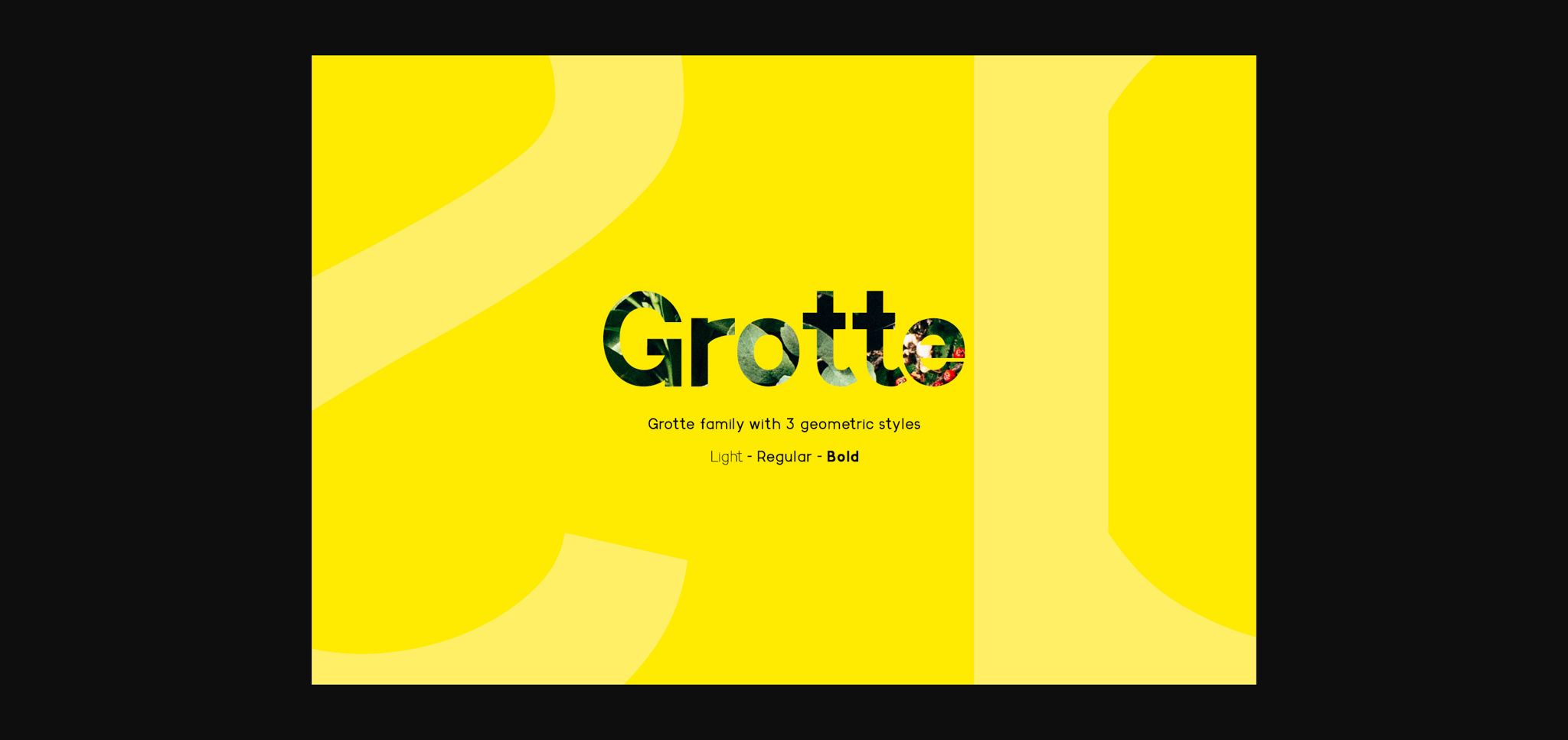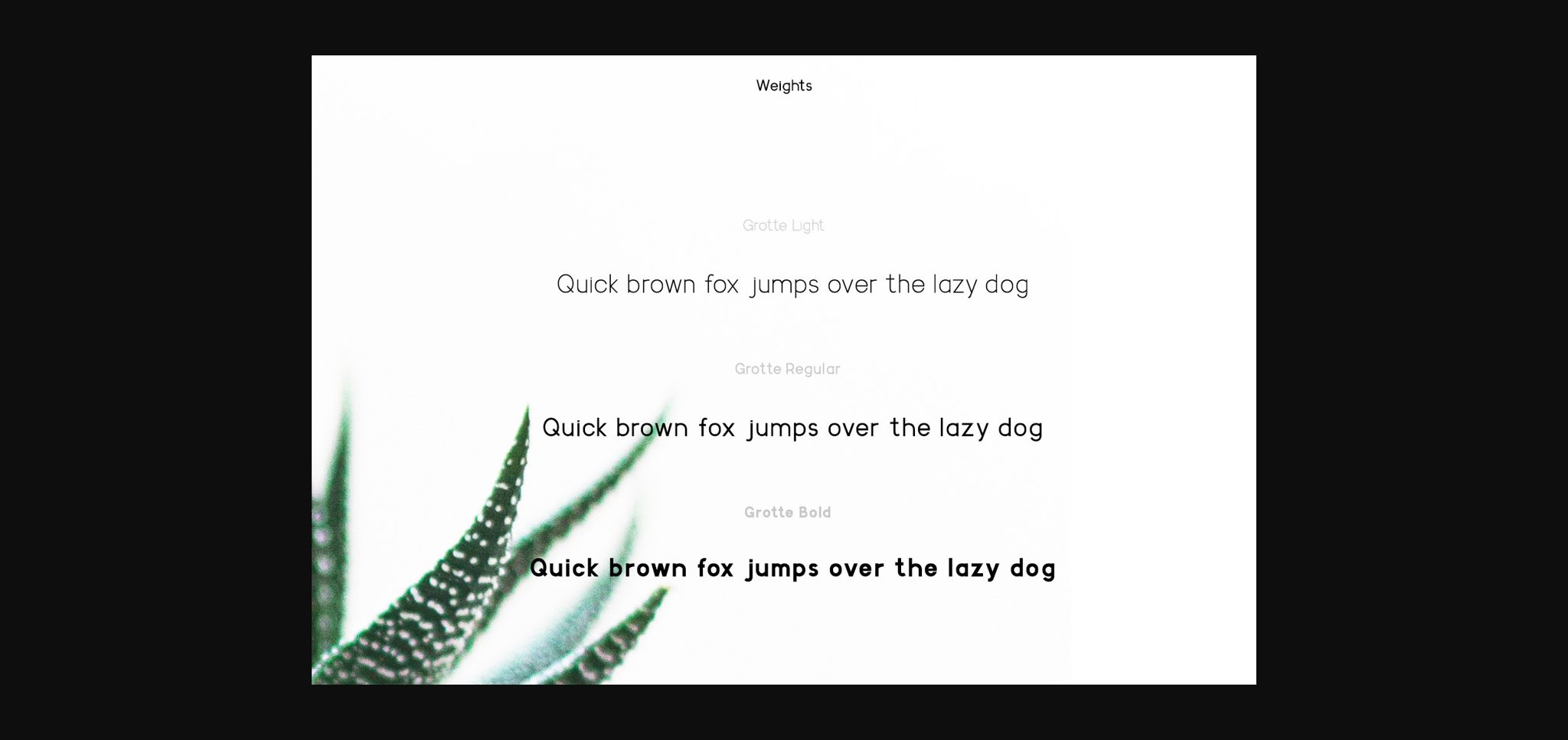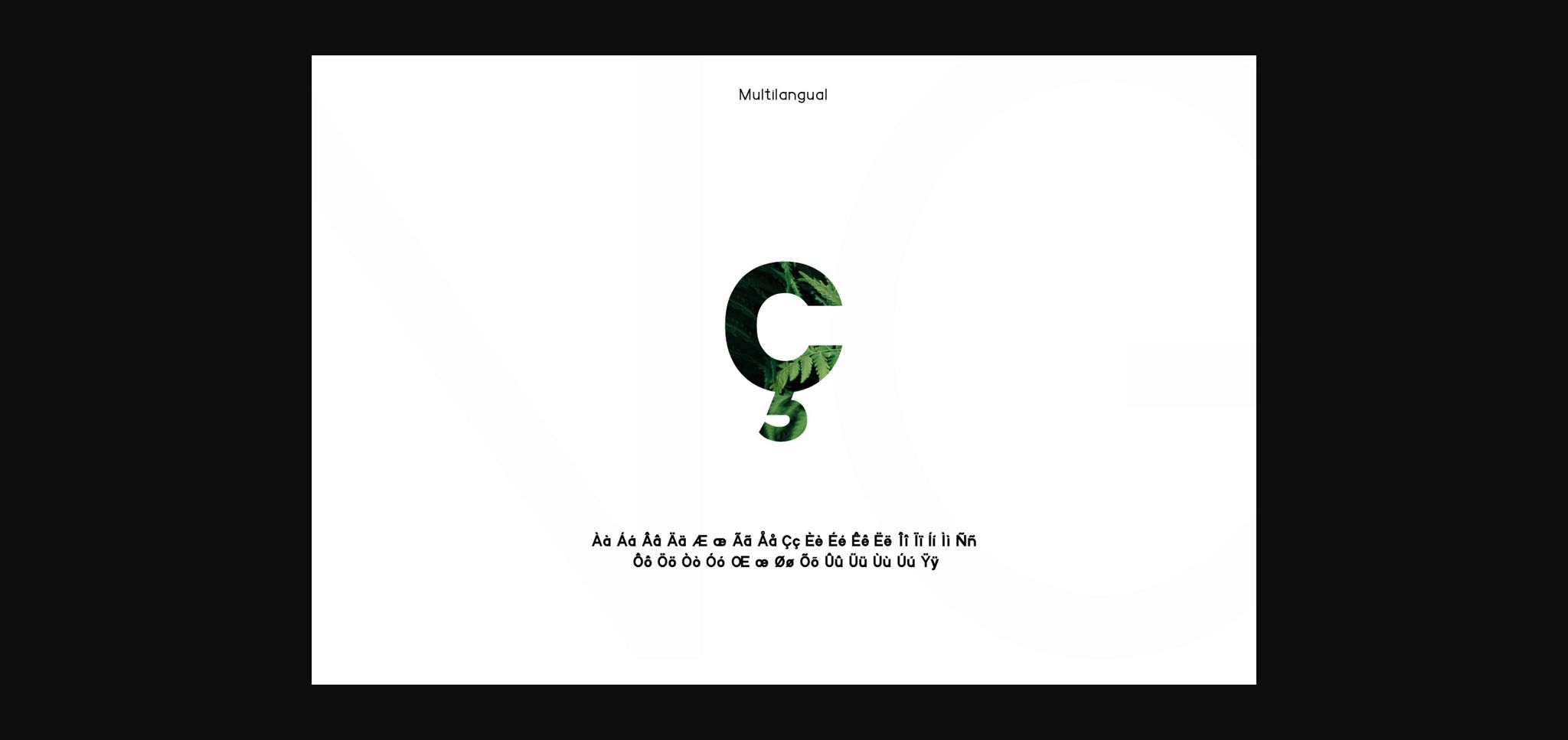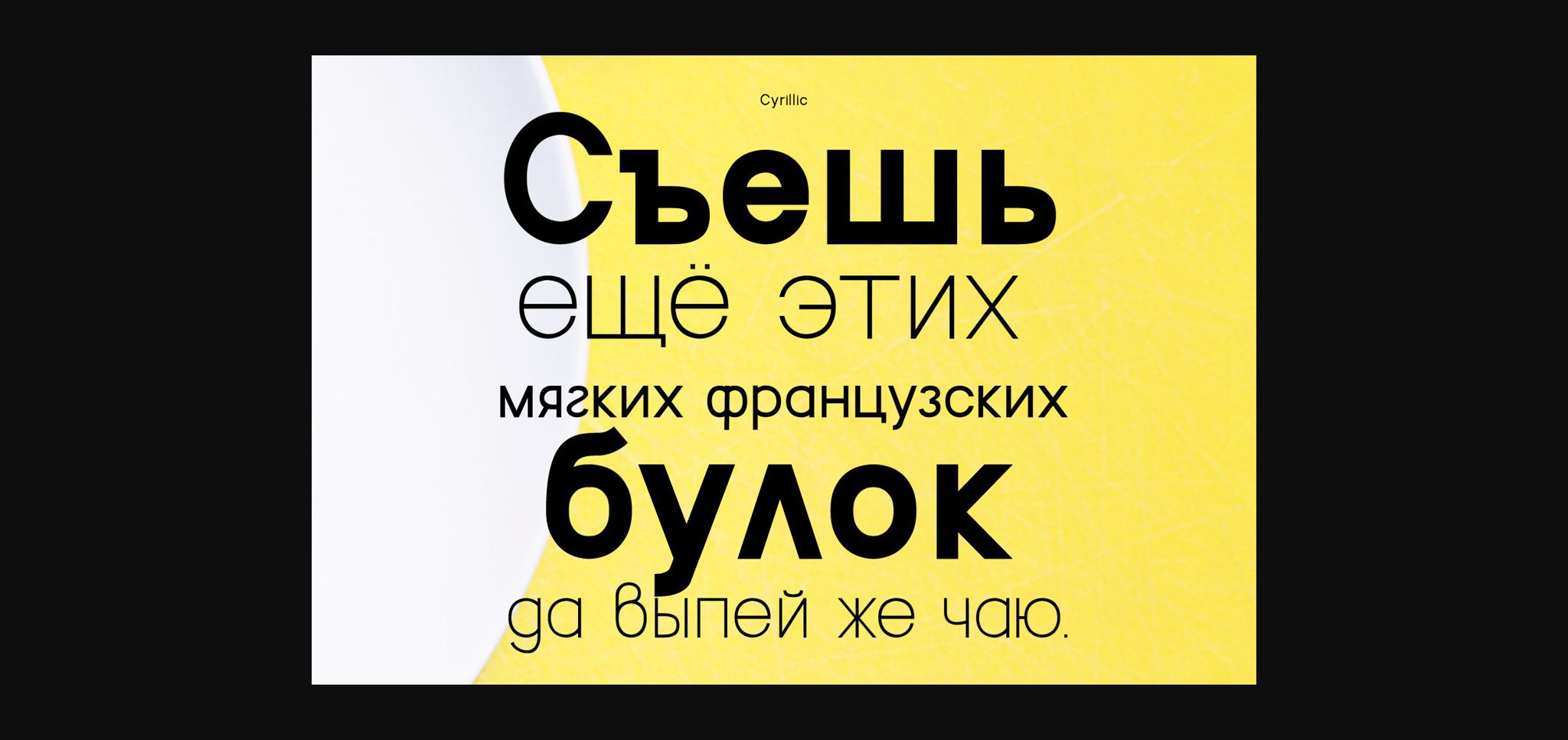
Grotte Font
About Grotte Font
Grotte is an elegant and bold sans serif font. Fall in love with its incredibly versatile style and use it to create gorgeous invitations, beautiful stationary art, eye-catching social media posts, and much more!